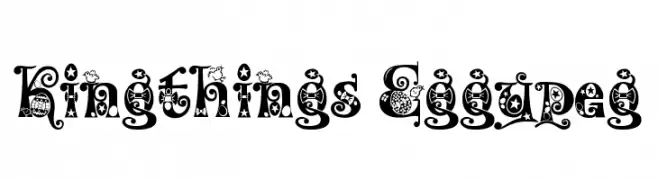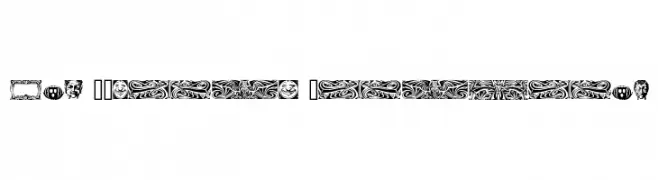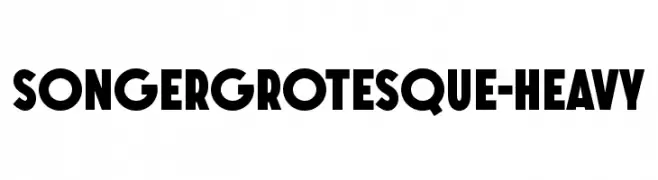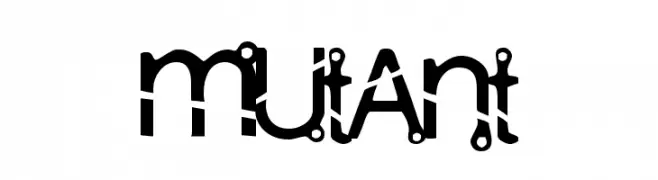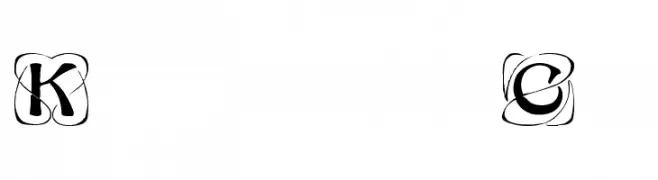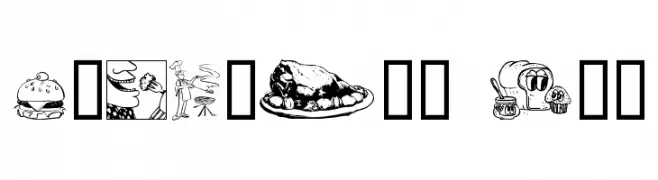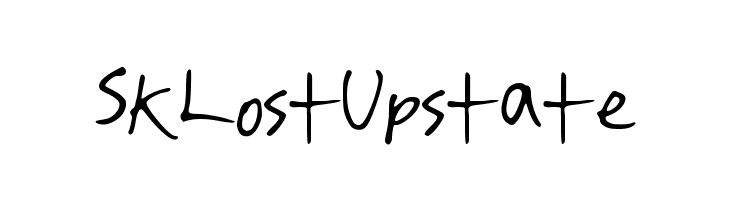
( Font by kingthingsfonts.co.uk )
A whimsical, decorative font with playful illustrations in each character.
( Fonts by Khurasan )
A playful, bold font with geometric shapes and a quirky style.
( Fonts by Klaus Johansen - www.listemageren.dK )
An Art Nouveau-inspired decorative font with intricate, ornamental designs.
( Alexander Pravdin )
A bold, modern sans-serif font with thick, uniform strokes.
( Fonts by dcoxy )
A bold, playful font with rounded edges and a cohesive, friendly style.
( Fonts by Sumit Kumar )
Casual handwritten font with a playful style.
( Fonts by Graham Meade - GemFonts )
Food-themed dingbat font with detailed culinary illustrations.